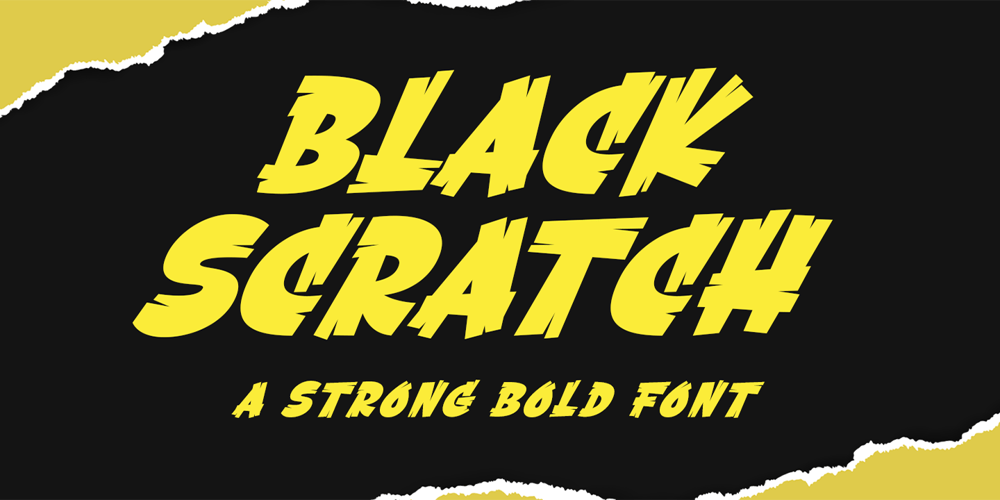
Black Scratch Font Family was designed by Bangkit Tri Setiadi and published by Blankids. Black Scratch contains 1 styles and family package options. Hello,Are you looking for a strong bold font? Do you want of creating Something that stand out and inspire creativity, imagination, and endless fun? Wait no more, we will give you the best choice.Black Scratch a Strong Bold Font Black Scratch a Strong Bold Font, Inspiring from strong bold typography. This font is perfect for a design that makes it more attractive and playful. made with a very good level of aesthetics making this font suitable for book cover, poster, packging, merchandise, logotype and much more.